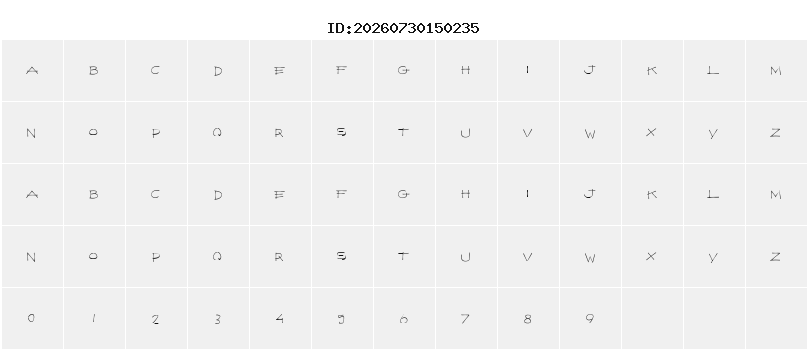
les Soeurs Samurai Preview
• Font Name: les Soeurs Samurai
• Manufacturer: Maelle.K
About les Soeurs Samurai.ttf
les Soeurs Samurai.ttf is a modern, elegant sans-serif font designed for ultimate readability and visual harmony. Perfect for branding, headlines, web design, and print materials.